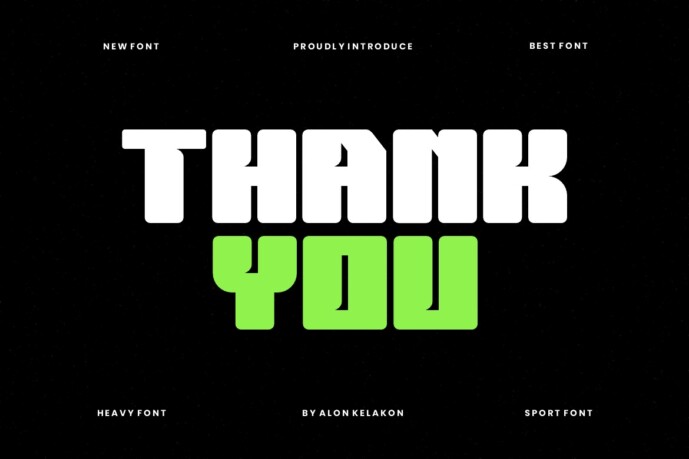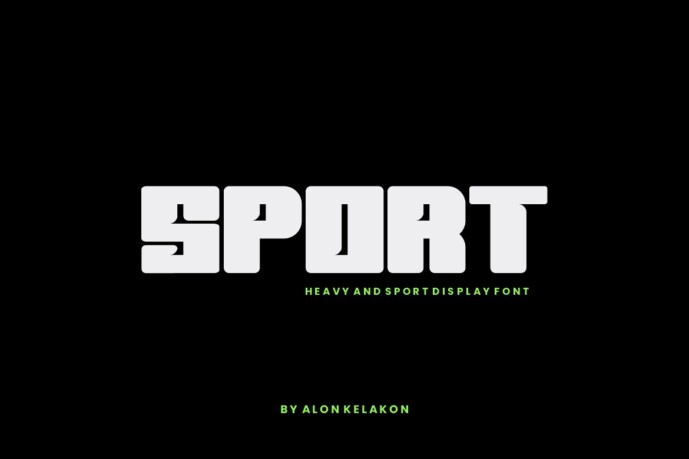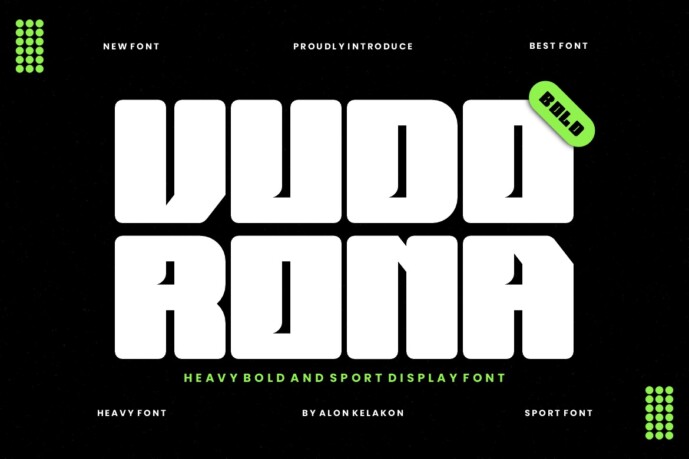
Vudorona Bold Font
Designer: alonkelakon
Vudorona Bold Font is unique. Ready to be used for your designs, such as labeling, movie scene, poster, movie title, concerts, album covers, logos and much more.